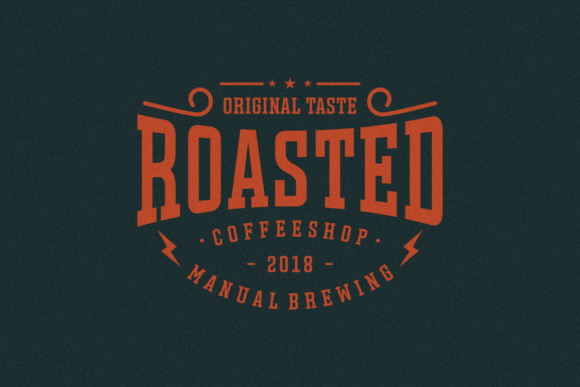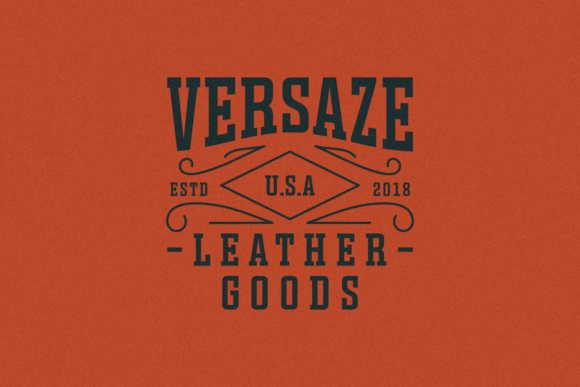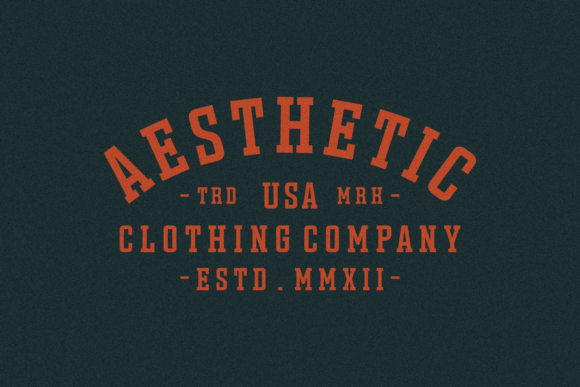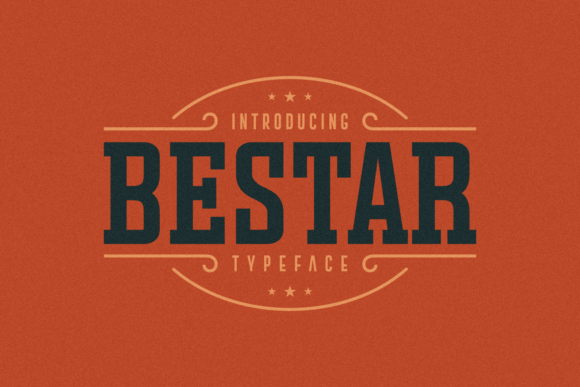
Introducing Bestar Font: A Timeless Slab Serif Display Font
In the world of typography, some fonts stand out for their unique blend of vintage charm and modern appeal. Bestar Font is one such typeface that has been making waves in the design community. This stunning slab serif display font is a perfect example of how ‘everything old is new again.’ With its retro flair and refreshing aesthetic, Bestar Font is an excellent choice for designers and crafters looking to add a touch of nostalgia to their projects while keeping them fresh and contemporary.
The Characteristics of Bestar Font
Bestar Font boasts a distinctive slab serif design, characterized by its bold and sturdy letterforms. The font’s vintage appeal is undeniable, with a charm that harks back to the early days of typography. However, its clean lines and well-defined lettering make it surprisingly versatile, allowing it to work seamlessly in a variety of design contexts. Whether you’re working on a branding project, a packaging design, or a digital platform, Bestar Font is sure to make a statement.
What Makes Bestar Font Stand Out
So, what sets Bestar Font apart from other display fonts on the market? Here are a few key features that make it a standout choice:
• Retro yet Refreshing: Bestar Font’s unique blend of vintage and modern elements makes it perfect for designers looking to create something new and exciting while paying homage to the past.
• Highly Versatile: The font’s clean lines and bold letterforms make it suitable for a wide range of design projects, from logos and branding to packaging and digital media.
• Excellent Legibility: Despite its bold design, Bestar Font remains highly legible, even at smaller sizes, making it perfect for use in a variety of contexts.
• Unique Character: Bestar Font has a distinct personality that sets it apart from more generic display fonts. Its characterful letterforms add a touch of whimsy and charm to any design.
Using Bestar Font in Your Designs
Bestar Font is an incredibly versatile typeface that can be used in a wide range of design projects. Here are a few ideas to get you started:
• Branding and Logos: Use Bestar Font to create a bold and memorable logo that pays homage to the past while looking fresh and modern.
• Packaging Design: Add a touch of vintage charm to your packaging designs with Bestar Font, perfect for products that want to stand out on store shelves.
• Digital Media: Use Bestar Font to add a unique and characterful touch to your digital platforms, from social media graphics to website headers.
• Advertising and Marketing: Make a statement with Bestar Font in your advertising and marketing materials, from billboards to brochures.
Tips for Getting the Most Out of Bestar Font
To get the most out of Bestar Font, here are a few tips to keep in mind:
• Experiment with Colors: Bestar Font looks great in a variety of colors, so don’t be afraid to experiment and find the perfect hue for your design.
• Play with Sizes: Bestar Font is highly legible at a range of sizes, so try using it in different contexts to see what works best for your design.
• Pair it with Other Fonts: Bestar Font works well with a range of other fonts, so try pairing it with some complementary typefaces to create a unique and interesting design.
Bestar Font is a truly unique and versatile typeface that offers a perfect blend of vintage charm and modern appeal. With its bold and sturdy letterforms, excellent legibility, and highly versatile design, it’s an excellent choice for designers and crafters looking to add a touch of nostalgia to their projects while keeping them fresh and contemporary. Whether you’re working on a branding project, packaging design, or digital platform, Bestar Font is sure to make a statement.